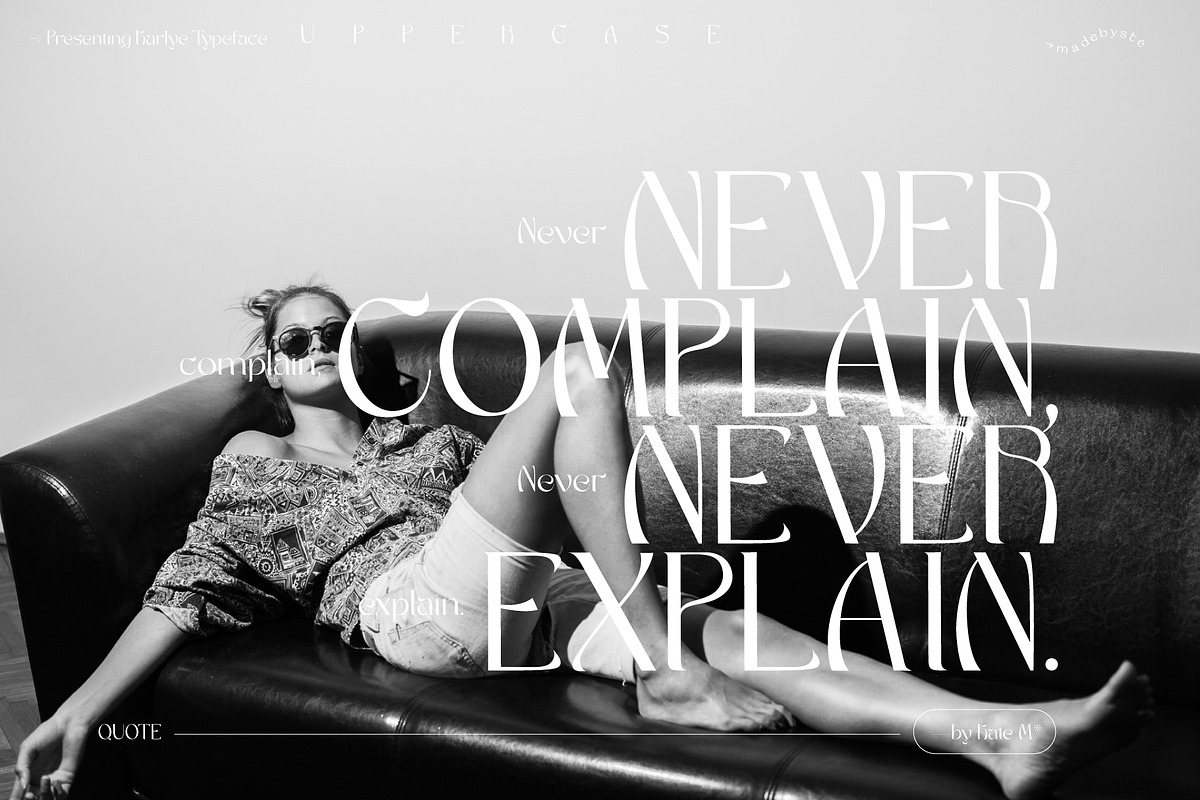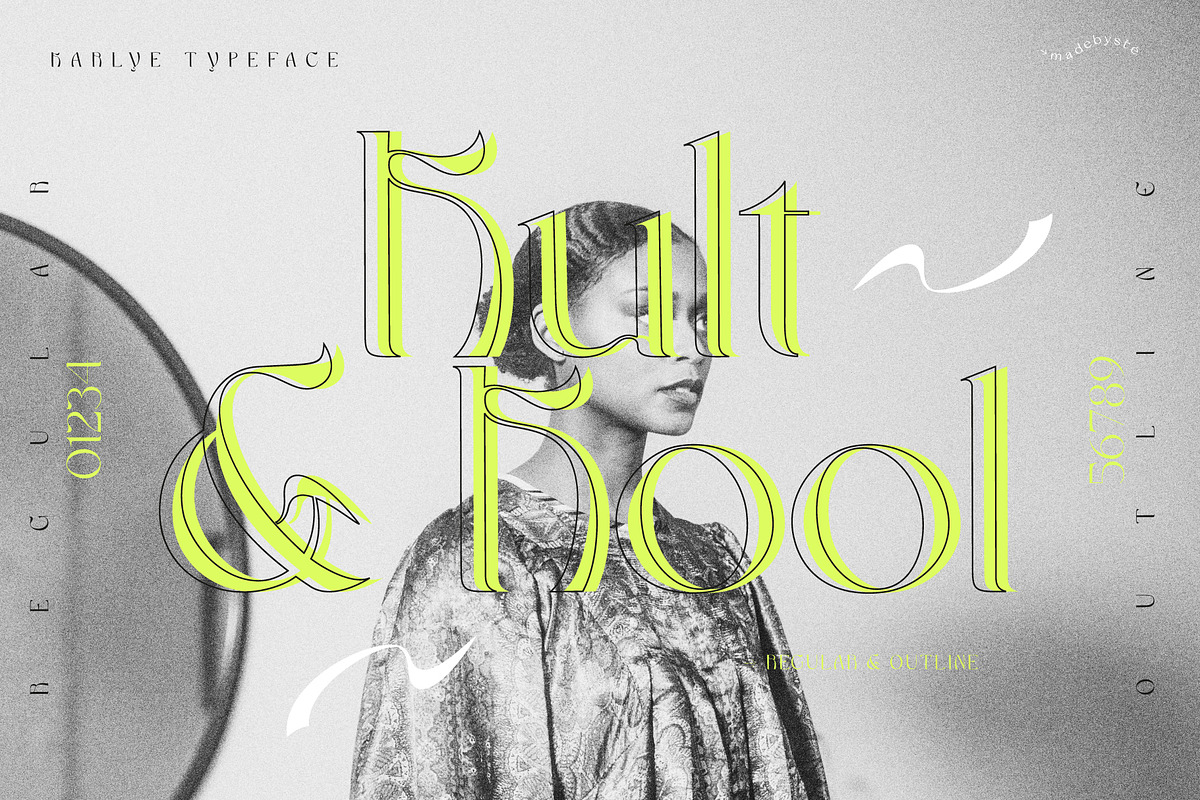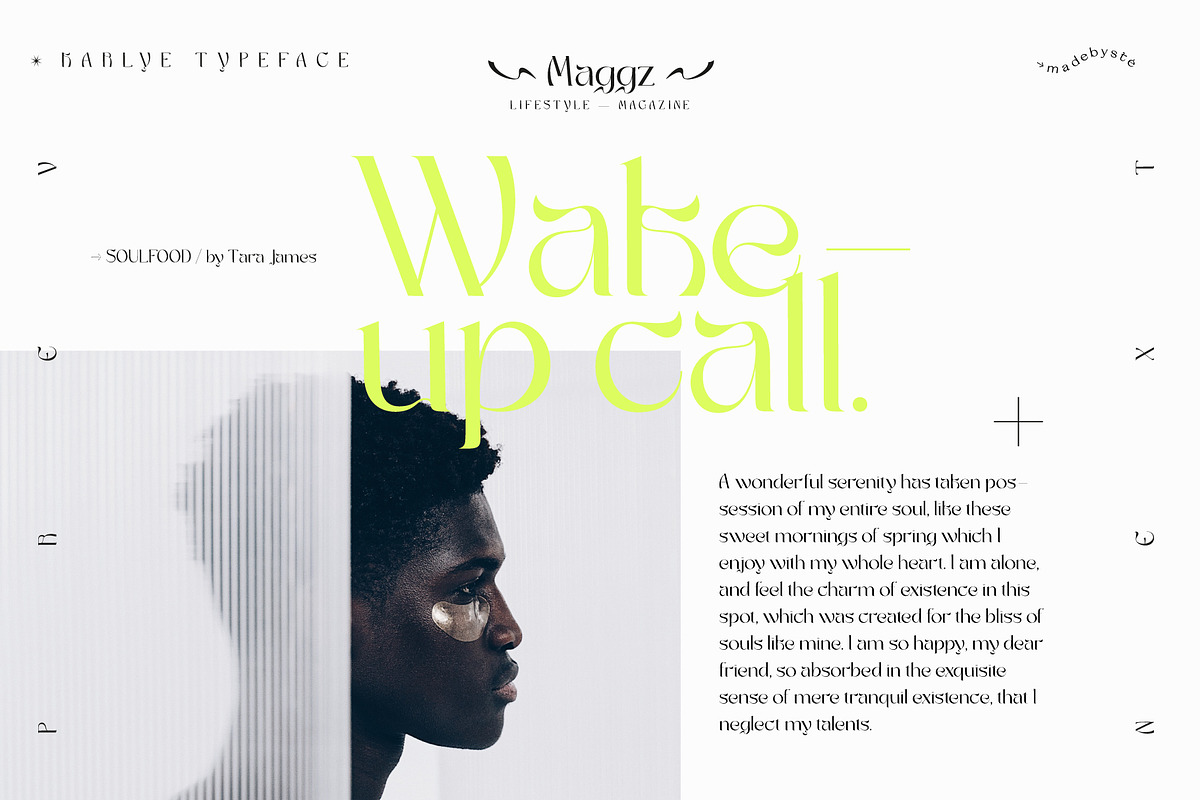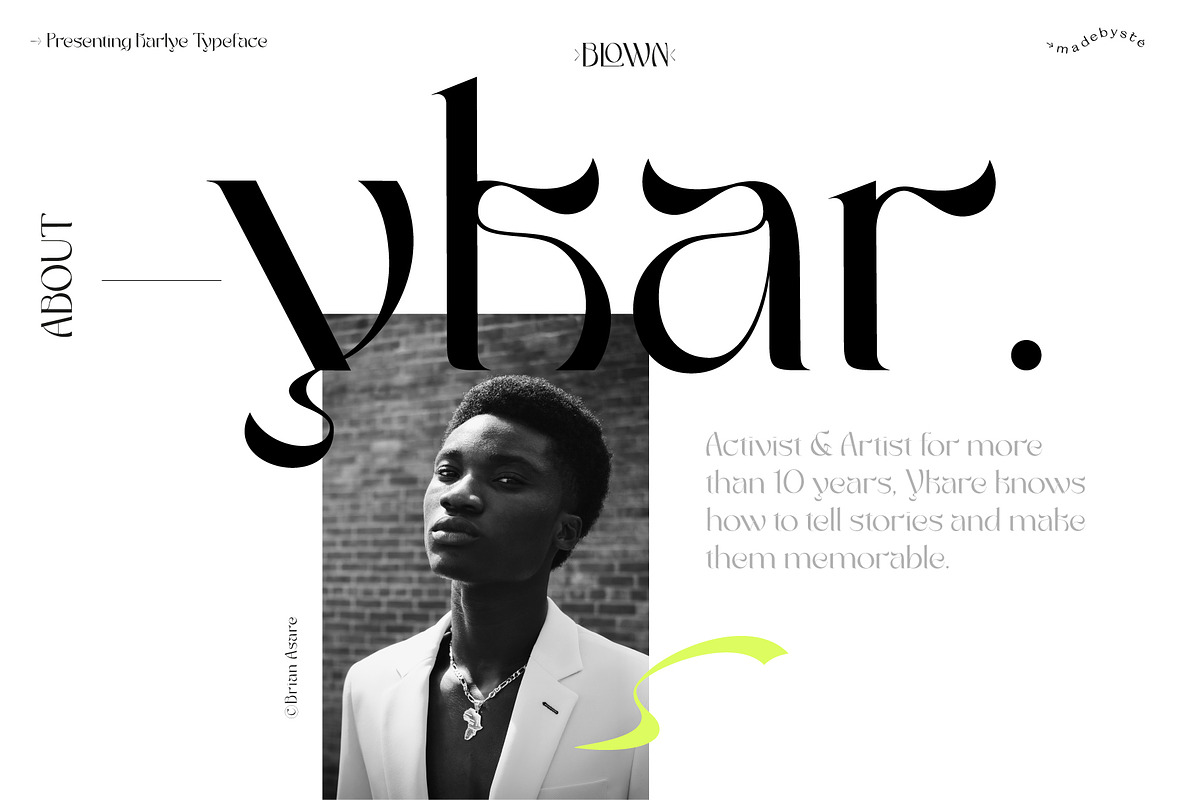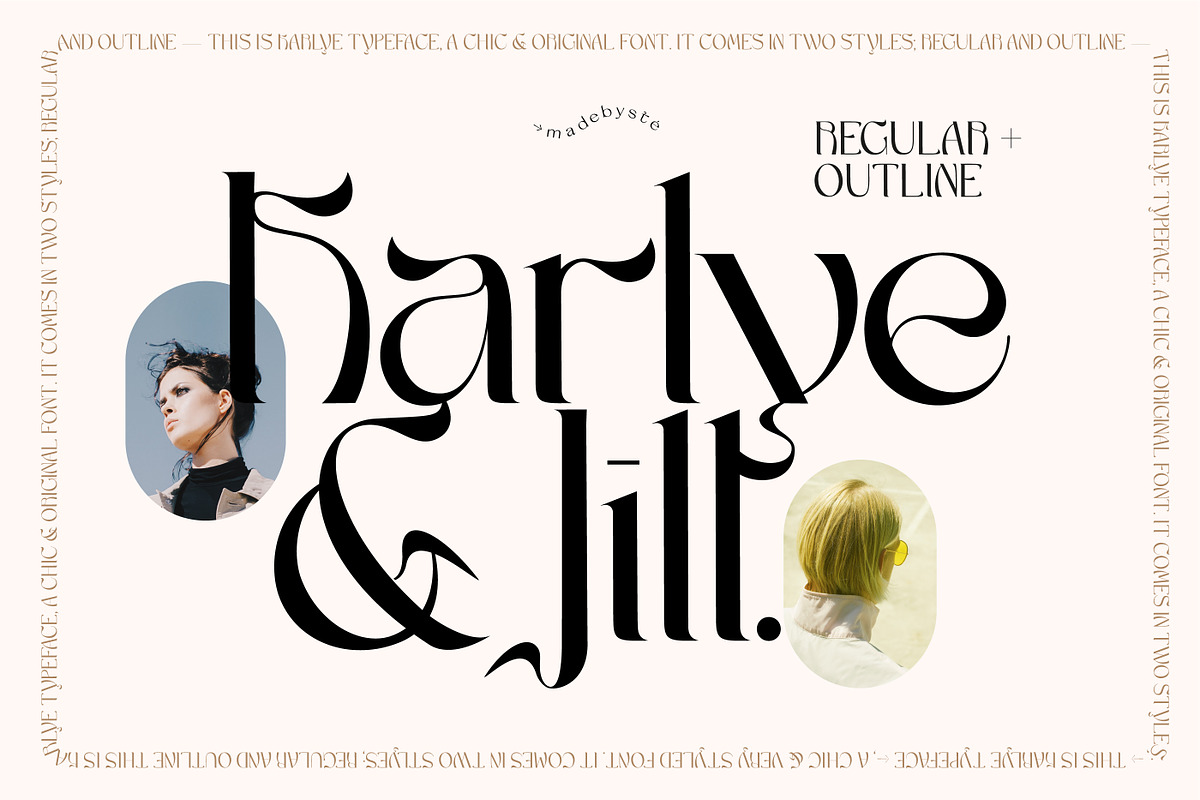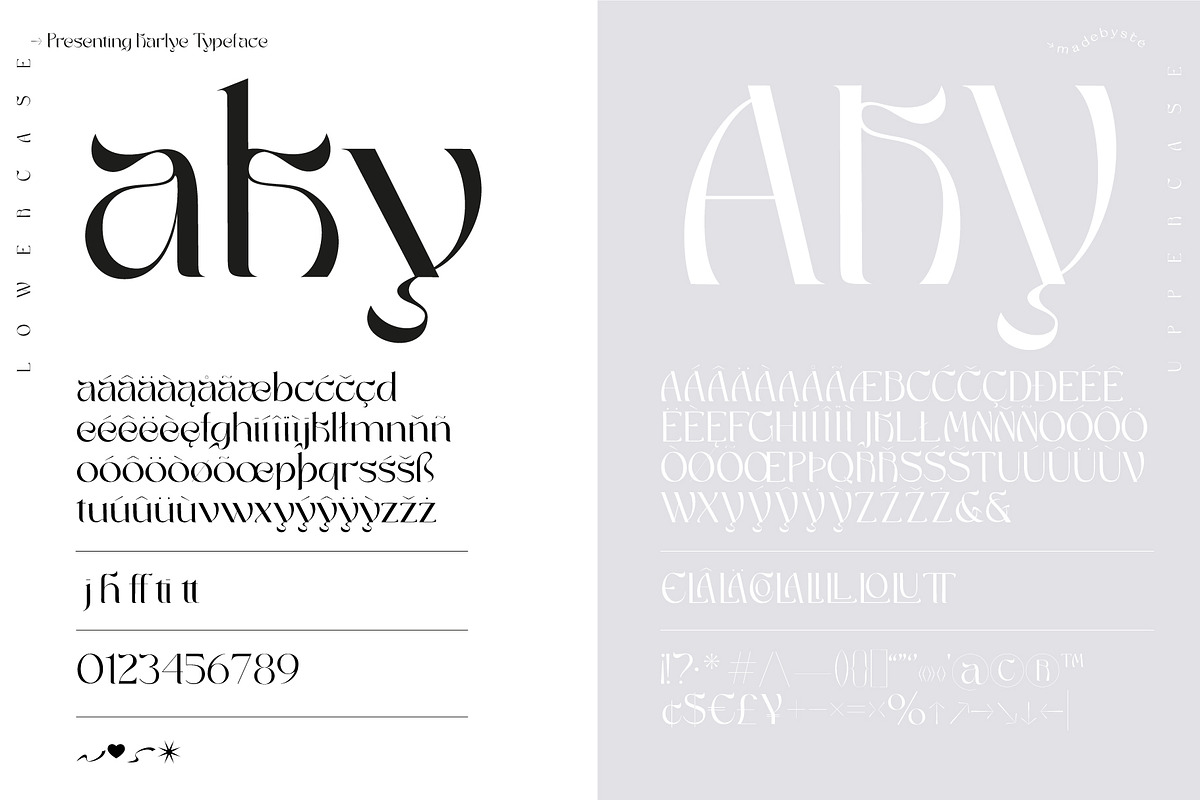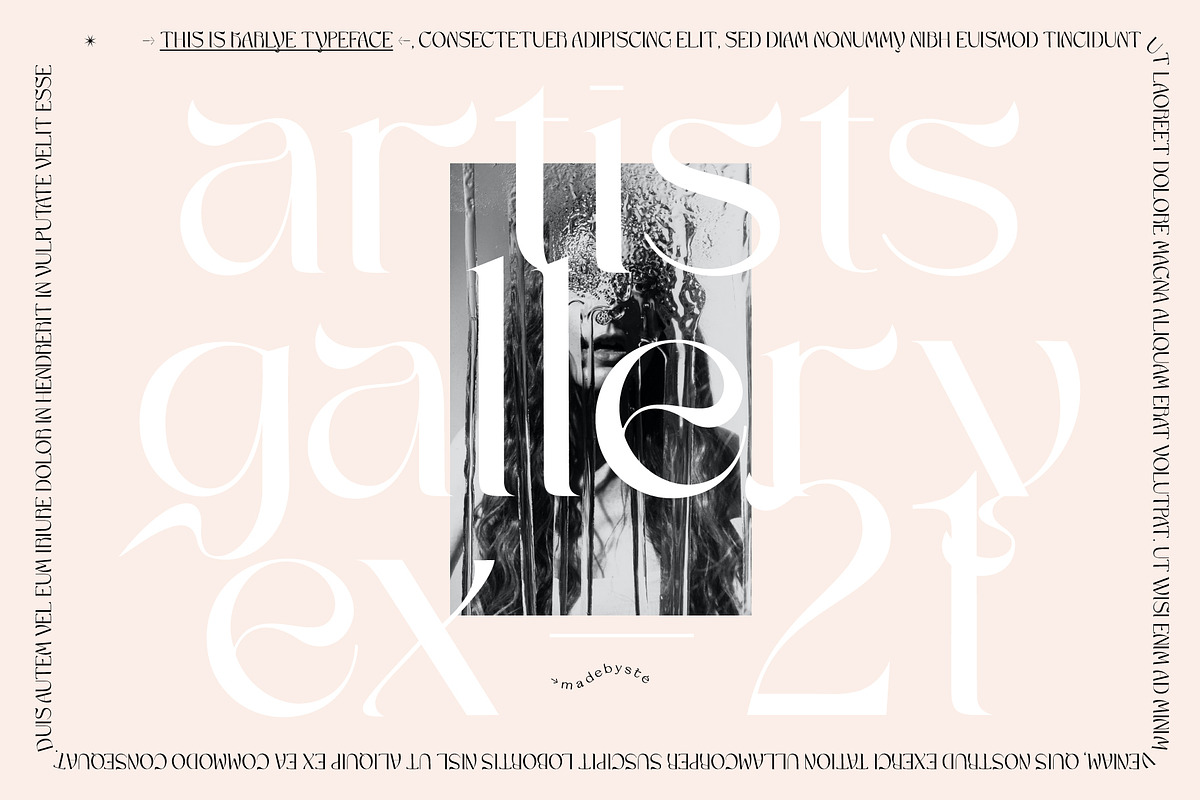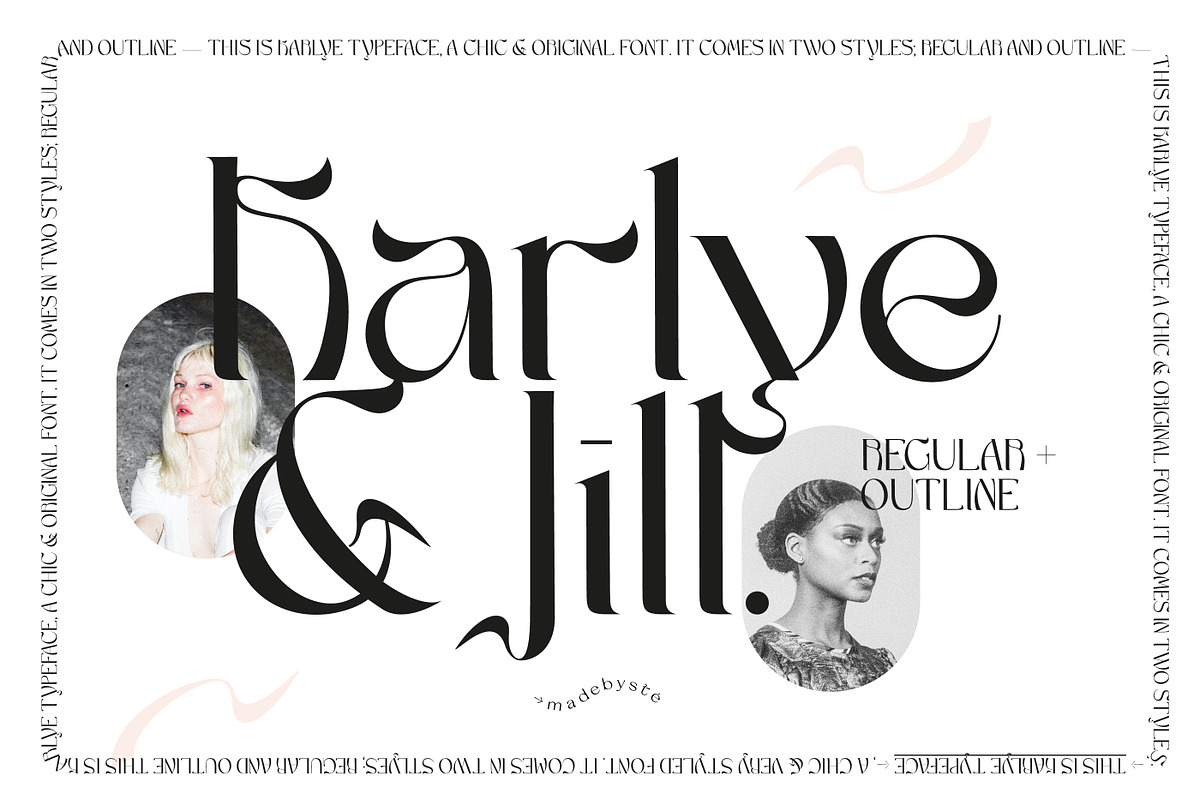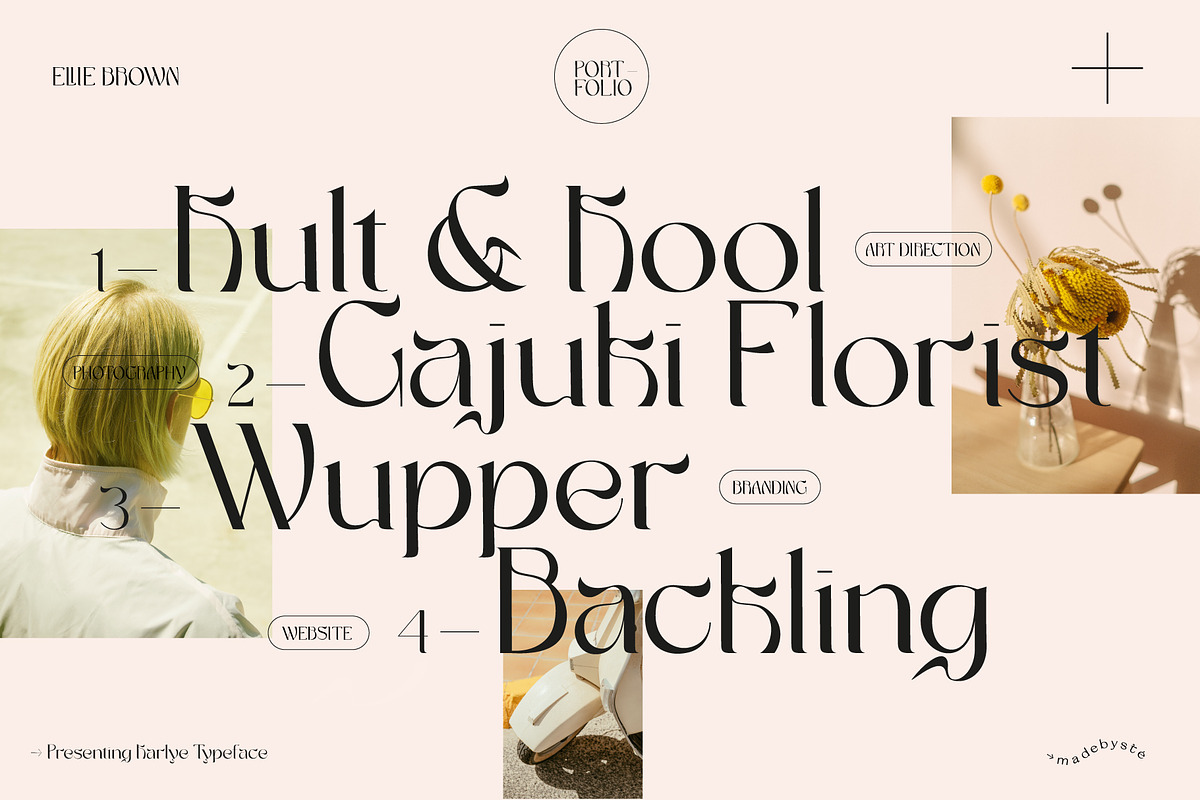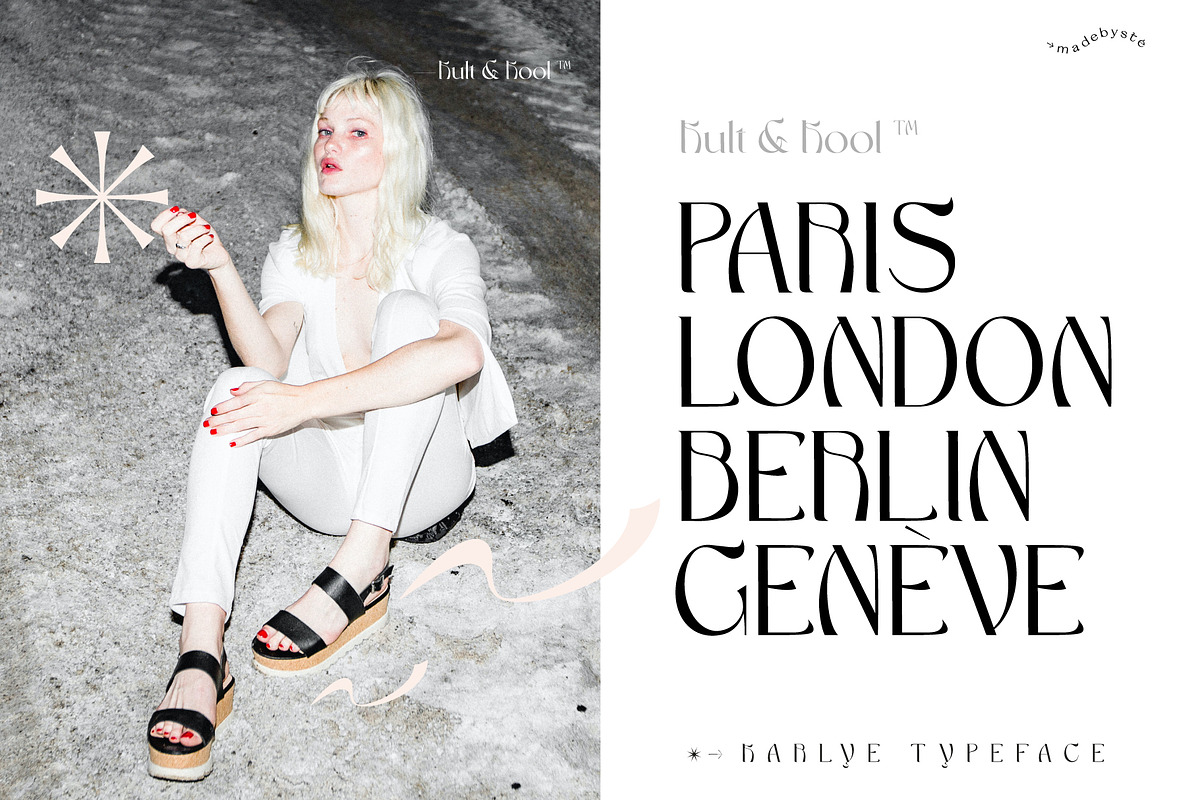
KARLYE — STYLISH FONT DUO
KARLYE — Regular + Outline - Fashionable / Chic / Original
Karlye is a fearless and modern typeface perfect for big headlines for both print and web. Create strong and impactful layouts with Karlye Regular & Outline
- Karlye Regular & Karlye Outline
- Upper/lower case, numbers, punctuation and multilingual support.